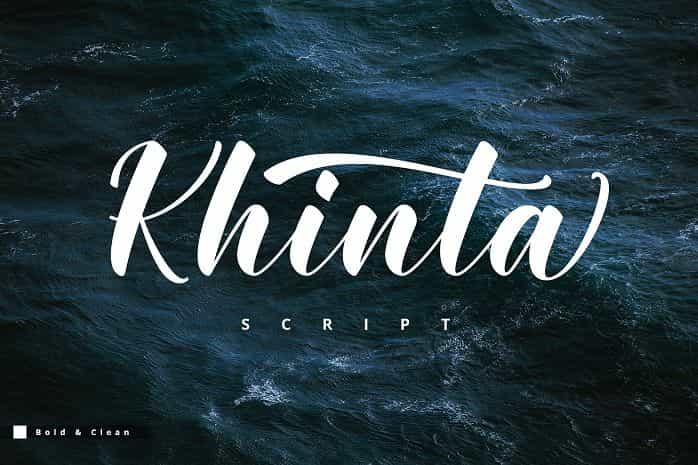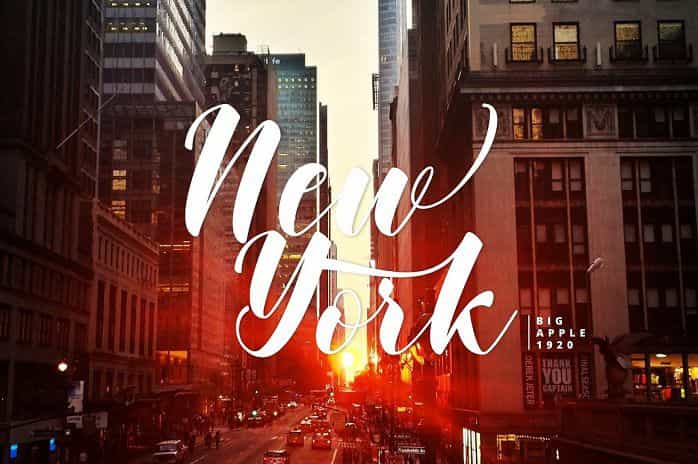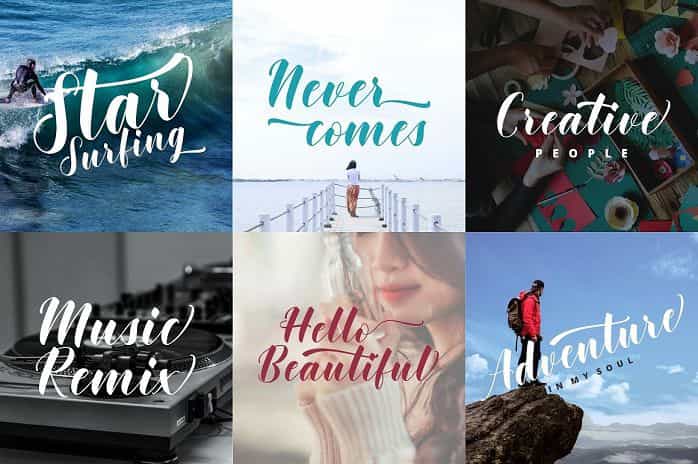
Introducing Khinta Font. Khinta was designed and shared by FadeLine. Khinta Script Font is a bold and clean style font, in it you will find the style that is firm, luxurious and simple. There are 400 glyphs that you can use in it. Thus, you can use it as much as you like and your design work will be completed.